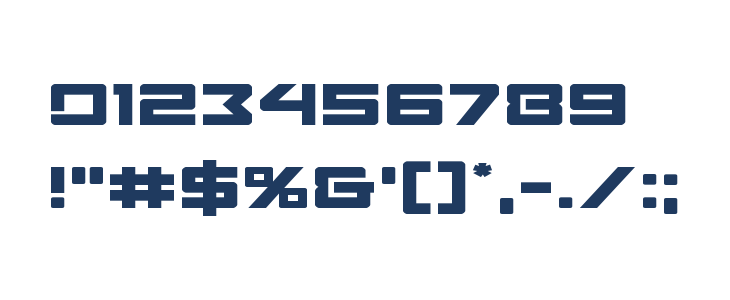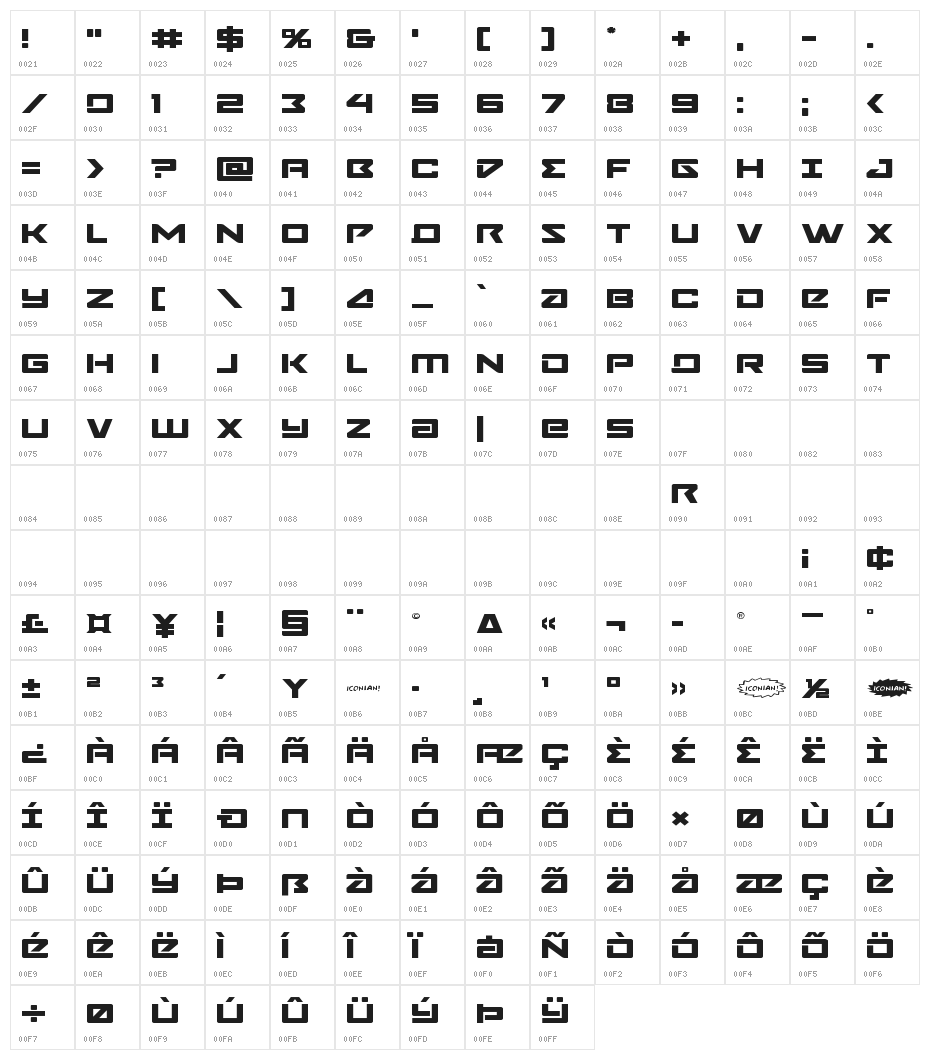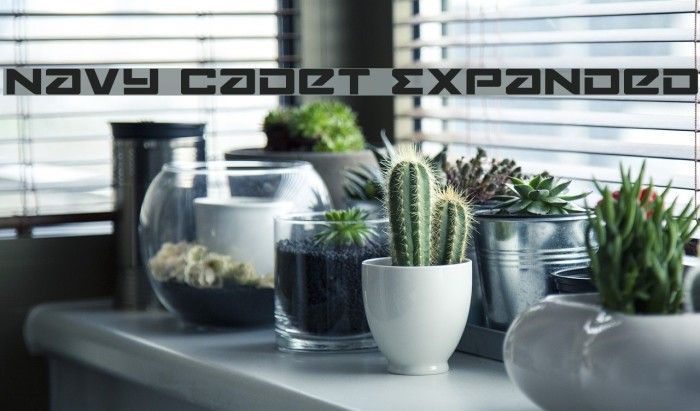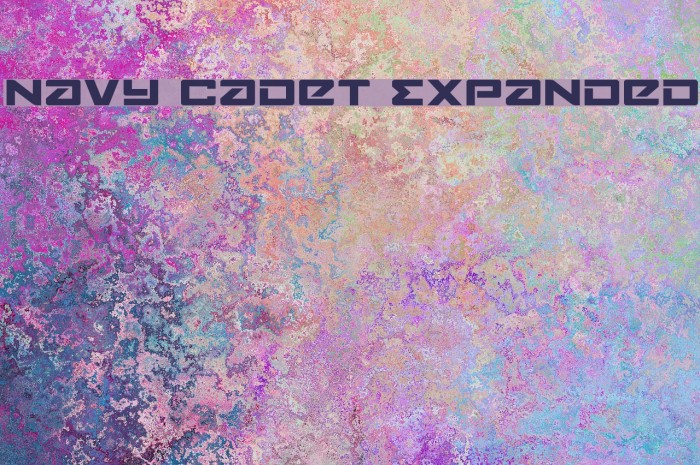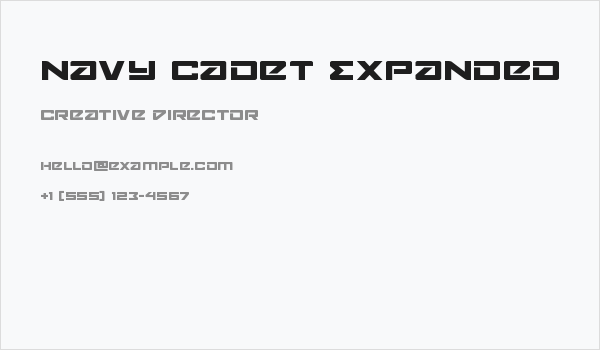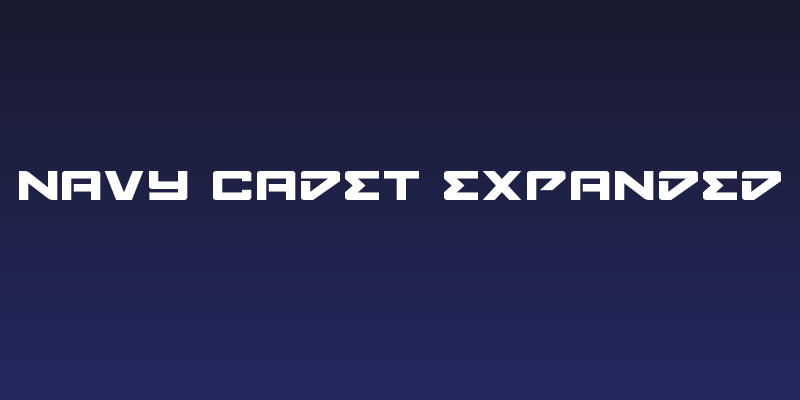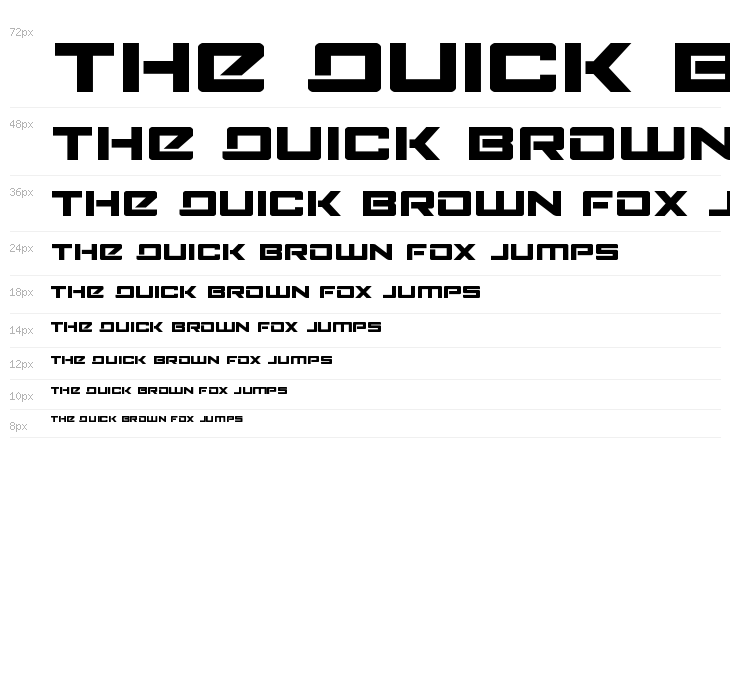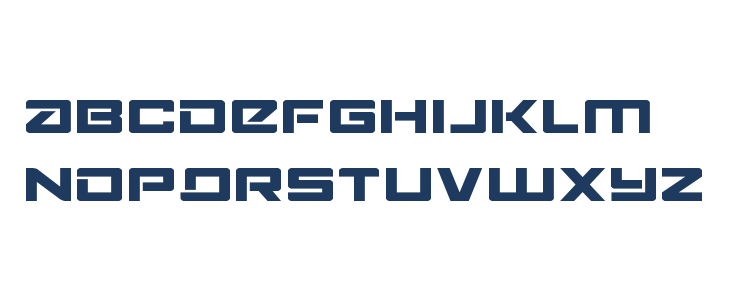
Navy Cadet Expanded Font
Navy Cadet Expanded Description
This font features a bold, geometric design with a futuristic and military-inspired aesthetic. The characters are constructed with sharp angles and straight lines, giving them a strong, commanding presence. The uppercase letters are particularly striking, with unique cutouts and angular shapes that add a sense of movement and dynamism. The lowercase letters maintain the same boldness and geometric style, ensuring consistency across the typeface. The numerals are equally bold and angular, making them highly legible and impactful. Special characters are designed to match the overall aesthetic, with a focus on symmetry and balance. This font's expanded width allows for a more open and spacious appearance, enhancing readability while maintaining its bold character.